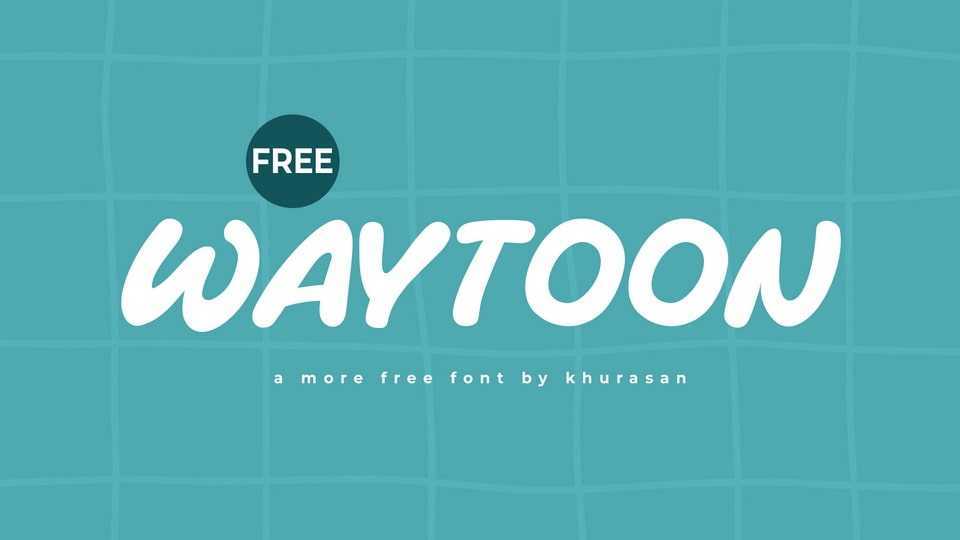
Download Waytoon font, a bold and bubbly hand-lettered typeface that radiates fun, friendliness, and cartoon charm with its smooth, rounded strokes and playful letterforms.